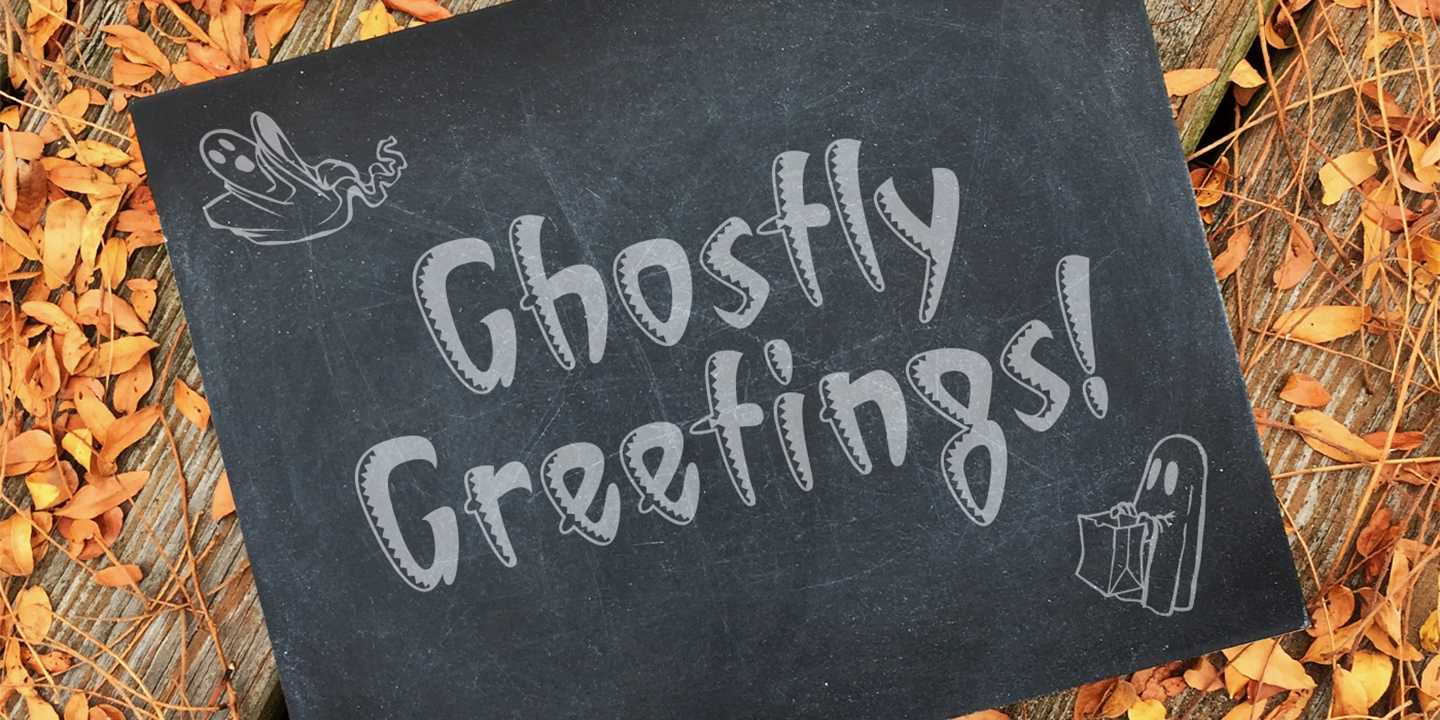
Designer Keith Moore, who was born in Germany but raised in Colorado, created the font . This typeface is a hybrid of Art Nouveau, street attitude, and 1950s design and was created with pen, ink, and French curves before being converted into figital fonts with Adobe Illustrator. ITC Vinyl is a family of four display faces in outline and solid designs with corresponding “sawtooth” variants for each.